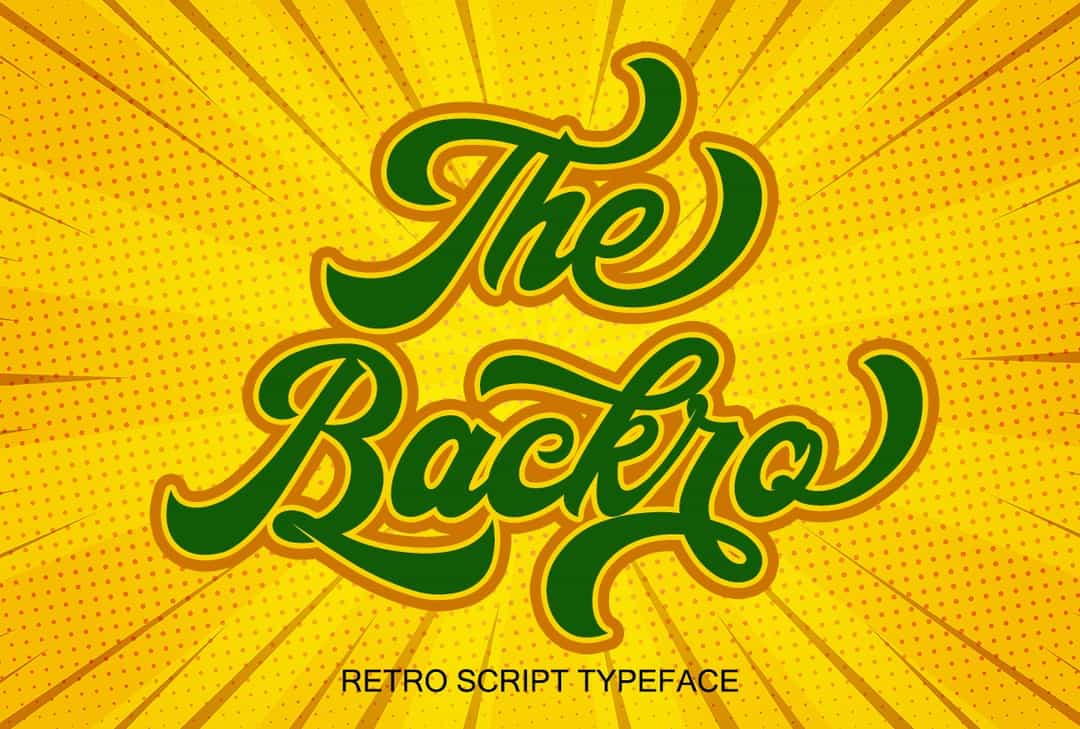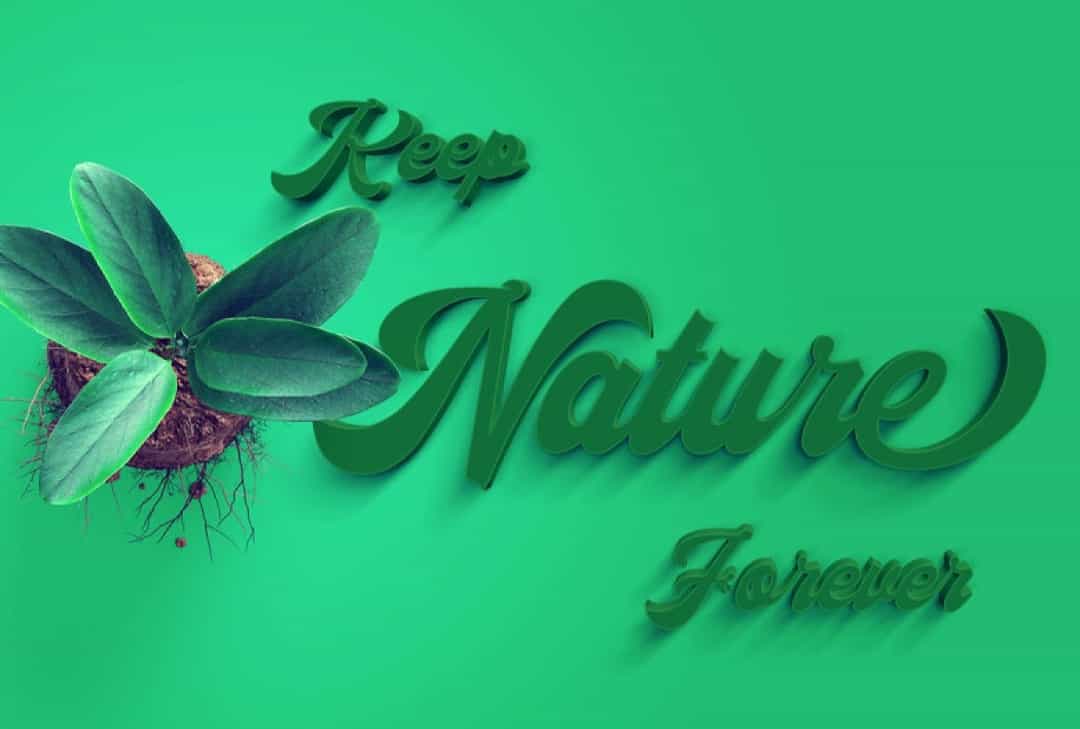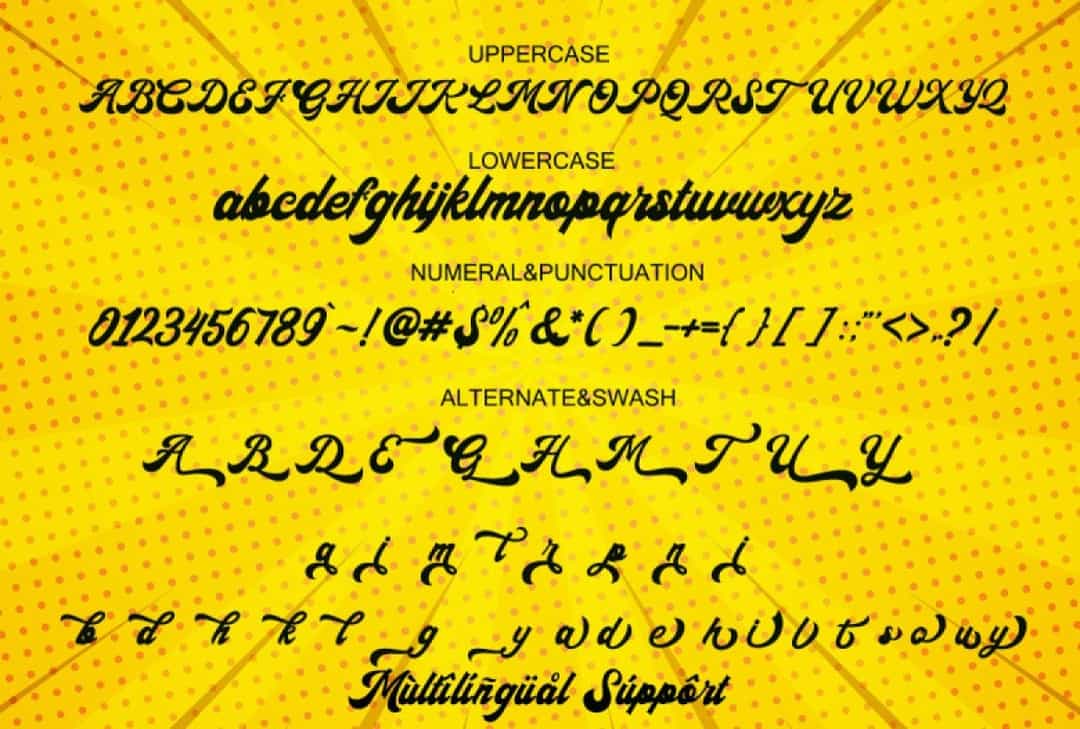
Discover The Backro Font, part of the Calligraphy Retro Script collection—a versatile and unique font perfect for adding a personal touch to your projects. Download it for free and enjoy crafting designs with style, from invitations to social media posts. This font is available exclusively for personal use, giving you the freedom to create without limits. Unlock your creativity with The Backro Font today!
Backro is a font that has been professionally created by a qualified person. Backro is a hand written calligraphy style font. It has all the uppercase and lowercase glyphs, Alternate, ligature punctuation, numbers and it supports multiple languages. This will work hand in hand with Backro to come up with some beautiful calligraphy works of art.